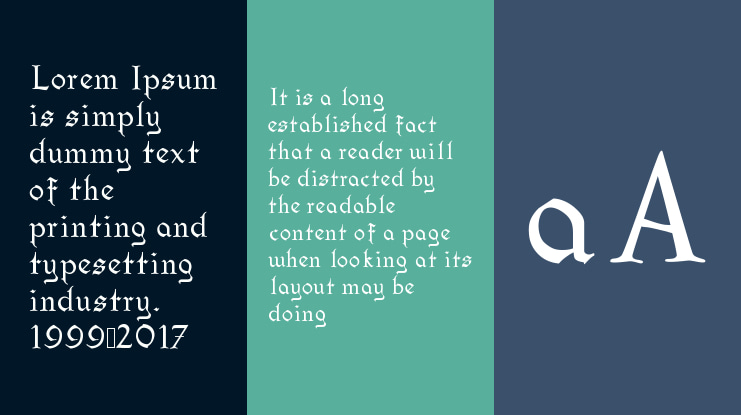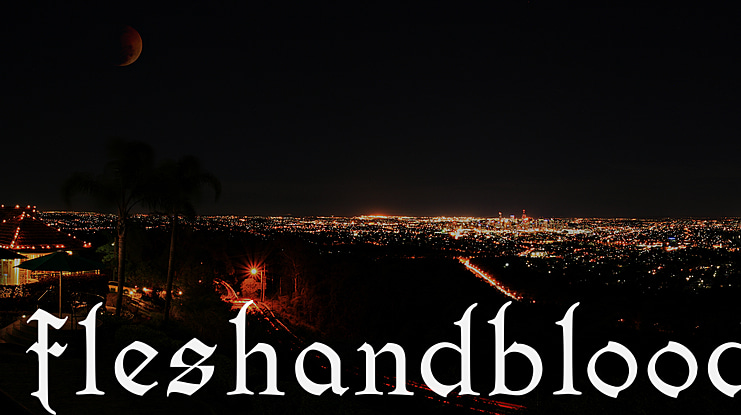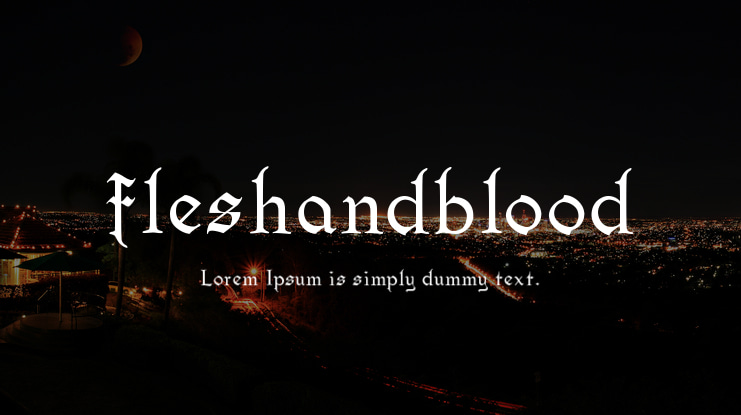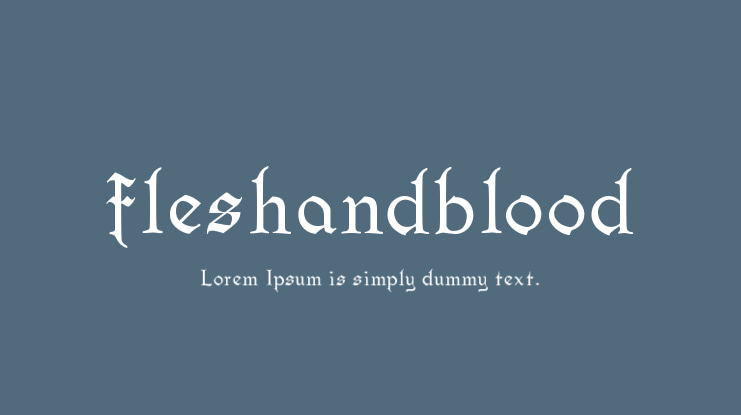
fleshandblood Font
I was in love with the “Bloodborne” game logo since I can remember. It combines so many styles, it is truly unique. Eventually I attempted to combine all these different styles to create a font similar to the “Bloodborne” logo.
Uppercase letters are modern/serif. As for the lowercase ones, the upper half is gothic/blackletter, whereas the lower half is mostly serif/handwritten. With some exceptions of course!